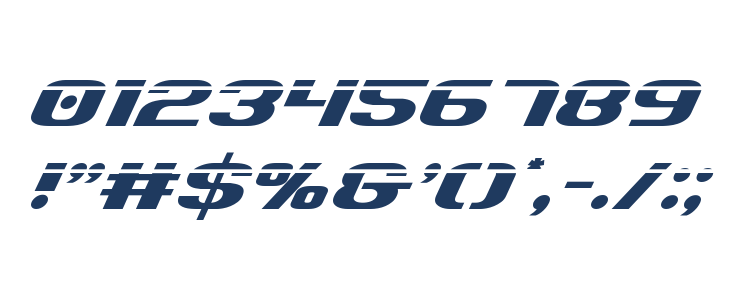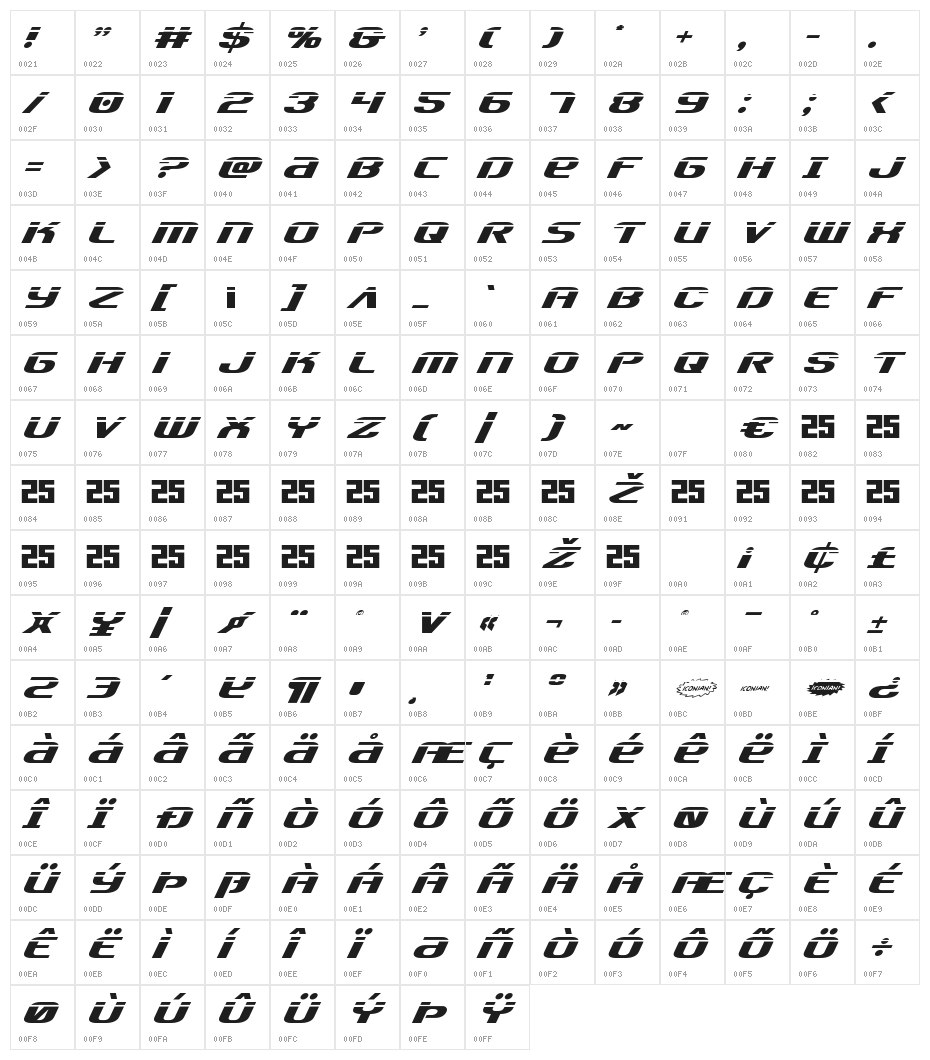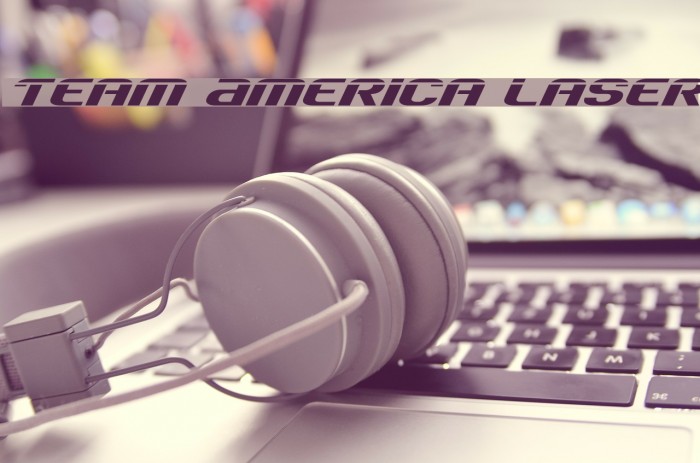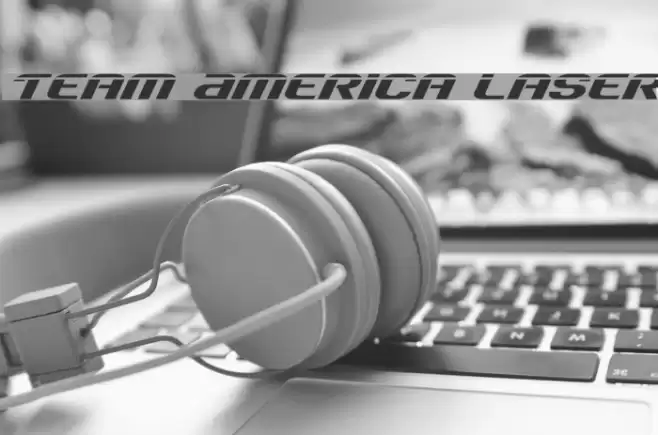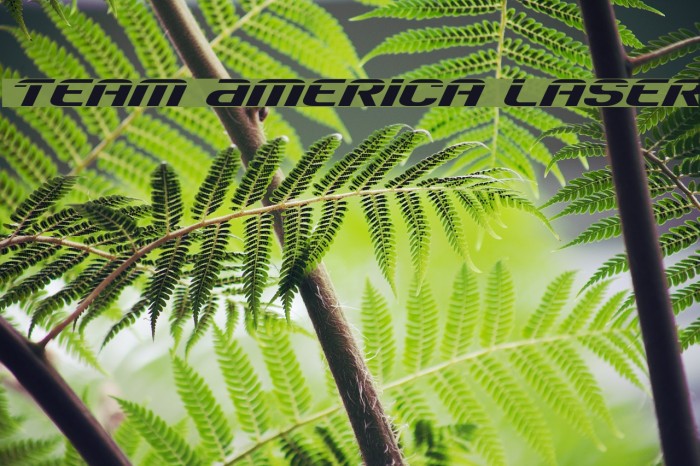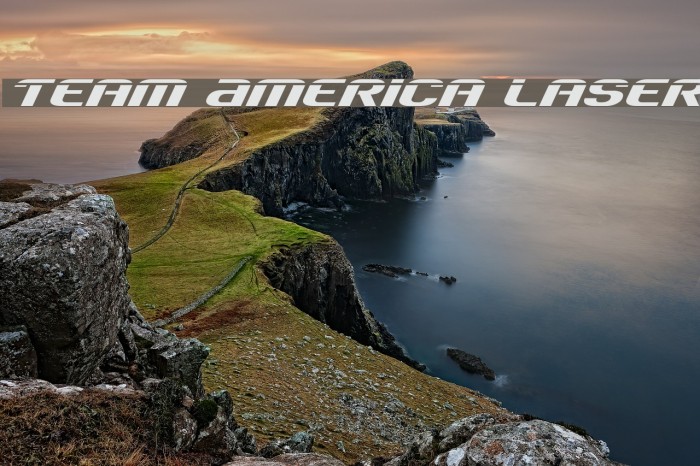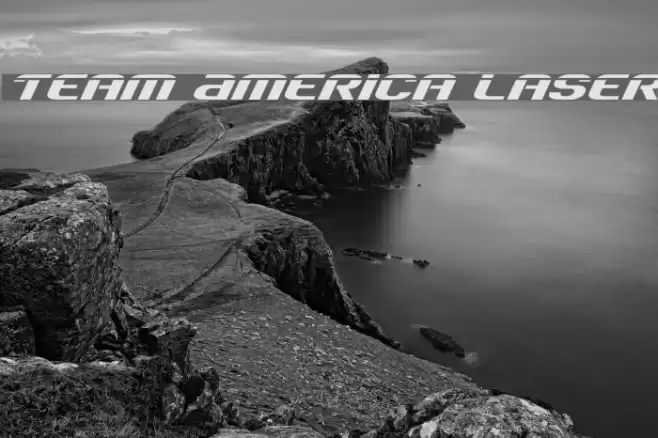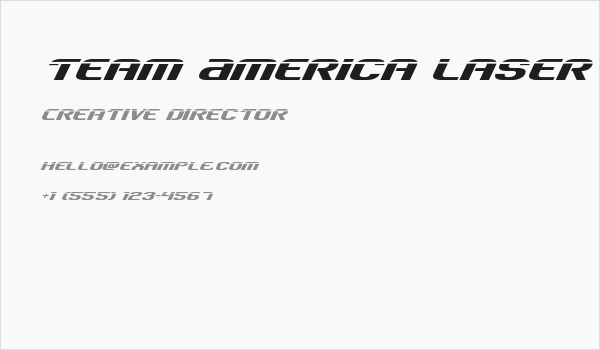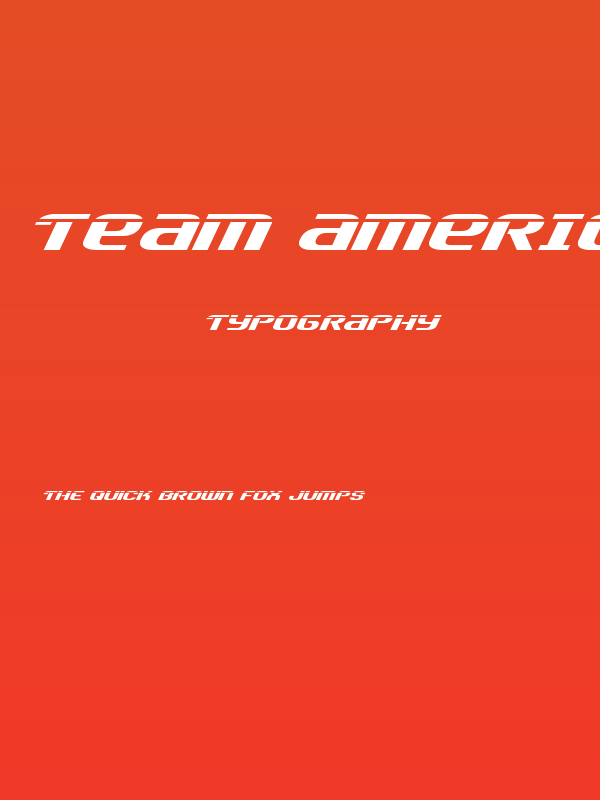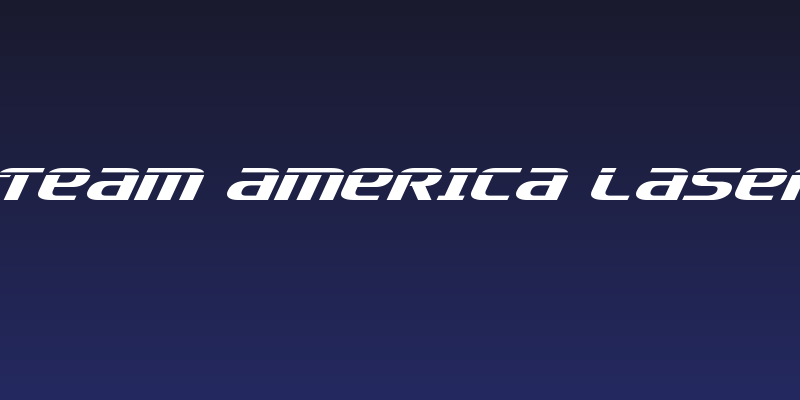
Team America Laser Font
Team America Laser Description
This font features a bold, futuristic design with a strong emphasis on angular lines and sharp edges. The characters are slightly italicized, giving a sense of motion and speed. The uppercase and lowercase letters maintain a consistent style, with a uniform stroke width that enhances readability. The numerals and special characters are designed to match the overall aesthetic, ensuring a cohesive look across all text elements. This font's distinct style makes it ideal for projects that require a modern and dynamic appearance.
| Proposed Projects | Ideal for sports branding, tech-related designs, video game titles, and dynamic posters. |